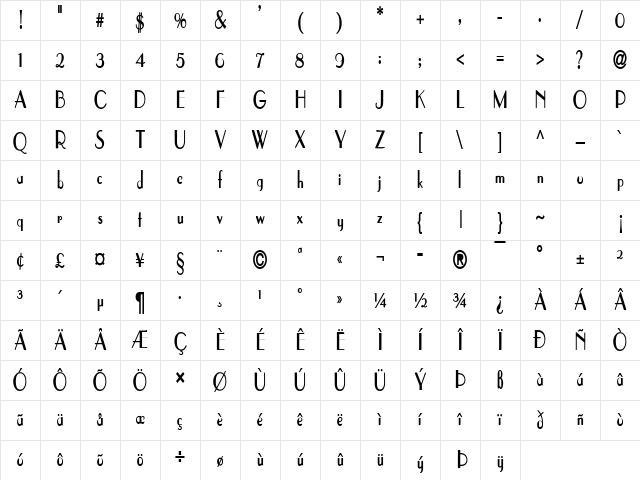
ElyseeCondensed is a composed and adaptable typeface that performs quietly and consistently across a wide range of design contexts. Its bold stroke weight gives it real presence on the page. Its narrow stance lets it pack a punch even in space-constrained designs.
Pro Tip: Use ElyseeCondensed in both headline and body roles to test its range before committing to a single application.